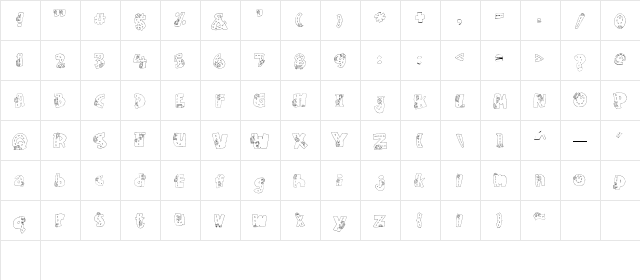
LD Traffic Jam Regular
Design Context for LD Traffic Jam Typeface
LD Traffic Jam is a composed and adaptable typeface that performs quietly and consistently across a wide range of design contexts.